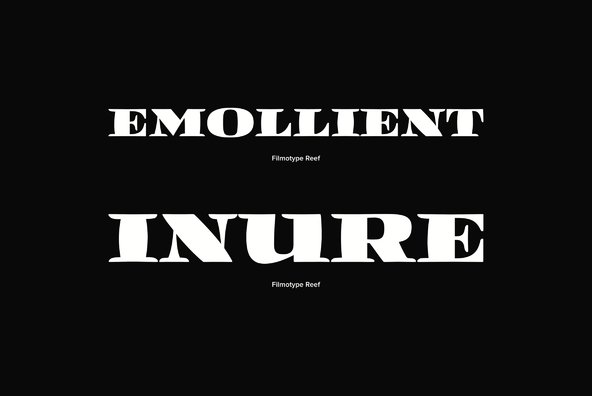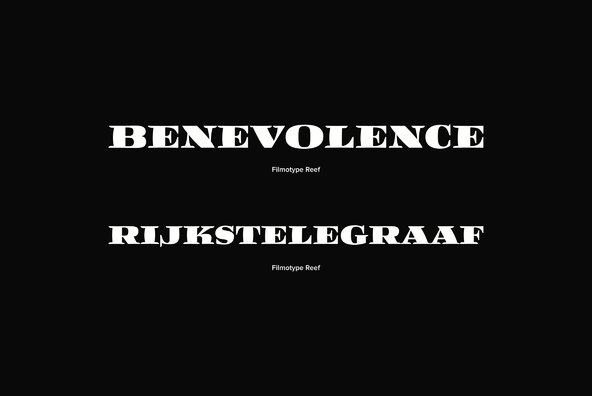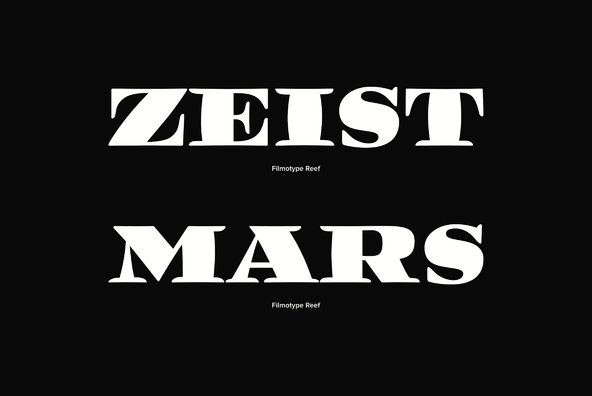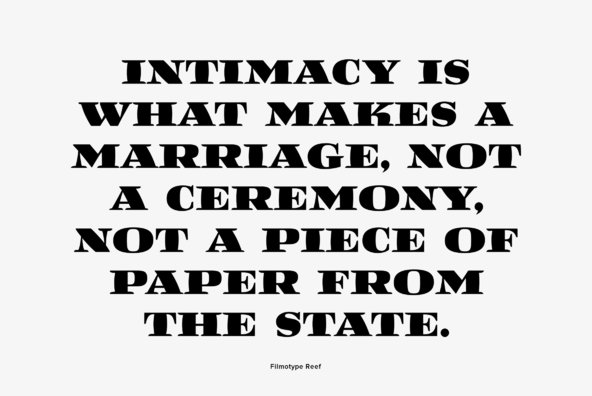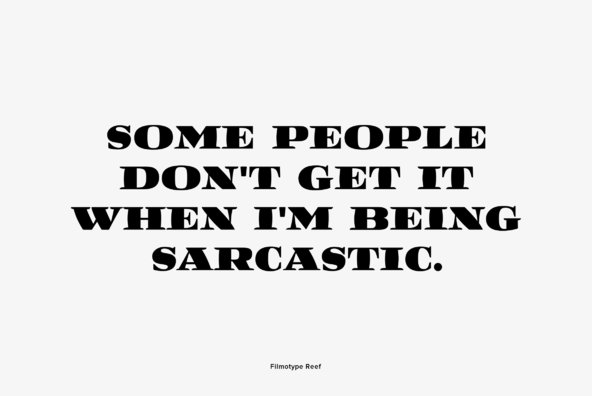
Filmotype Reef
Filmotype Reef was among the companies earliest original Serif styles introduced by Filmotype in the early-to-mid 1950s. This wonderful wide serif style owes its character to its calligraphic roots.
Filmotype Reef was developed from the original font filmstrips and includes a full international character compliment, automatic fractionals, ordinals, and a suite of alternates in dynamic OpenType format.